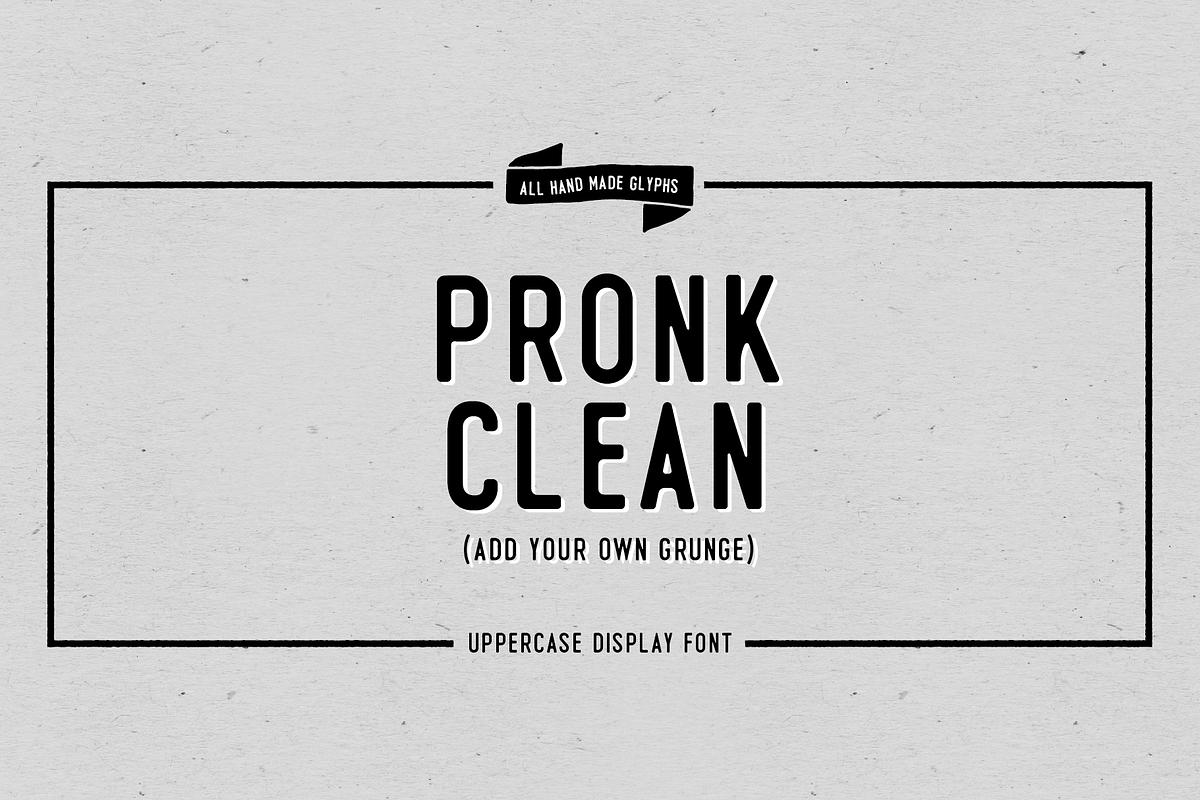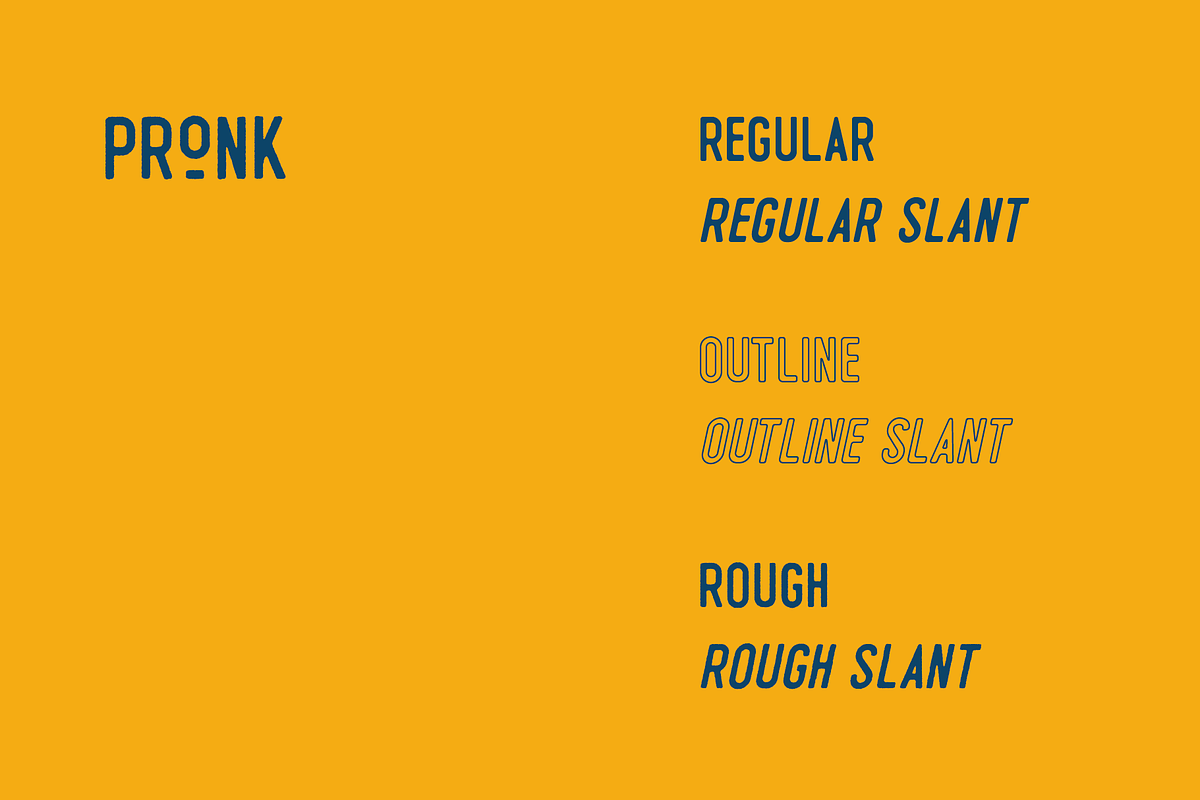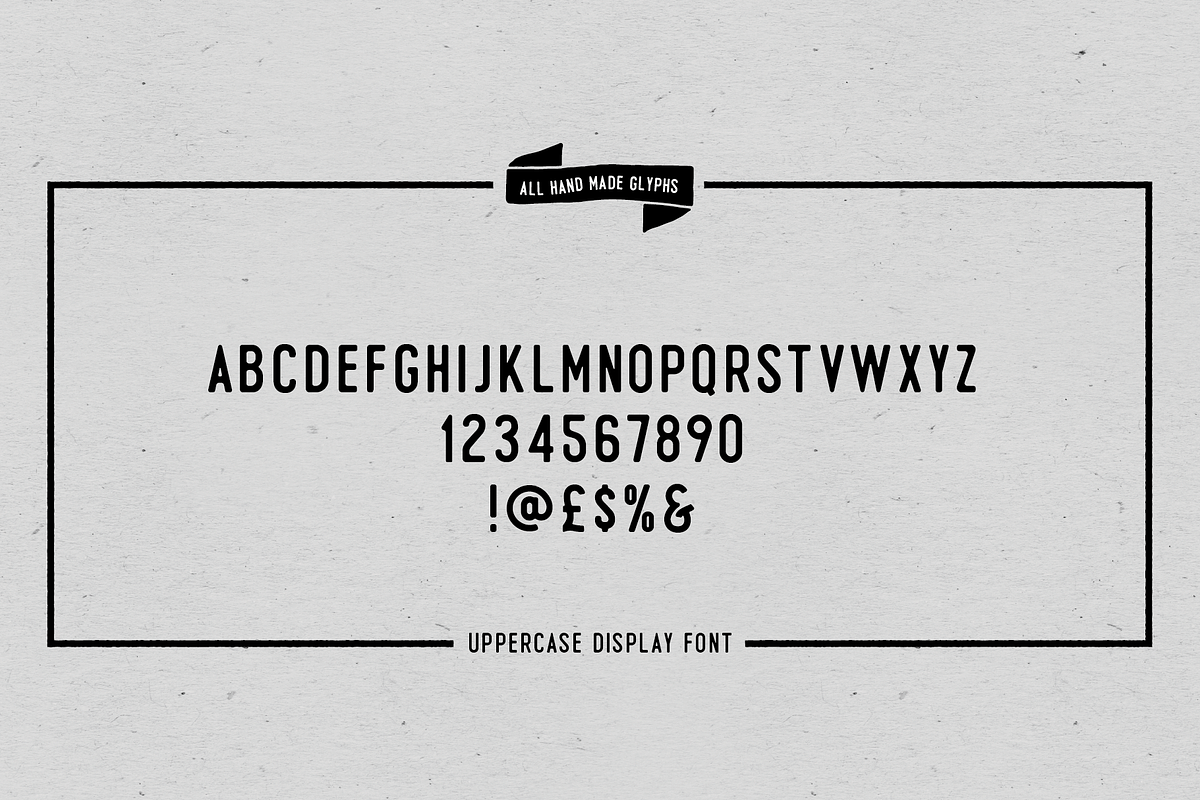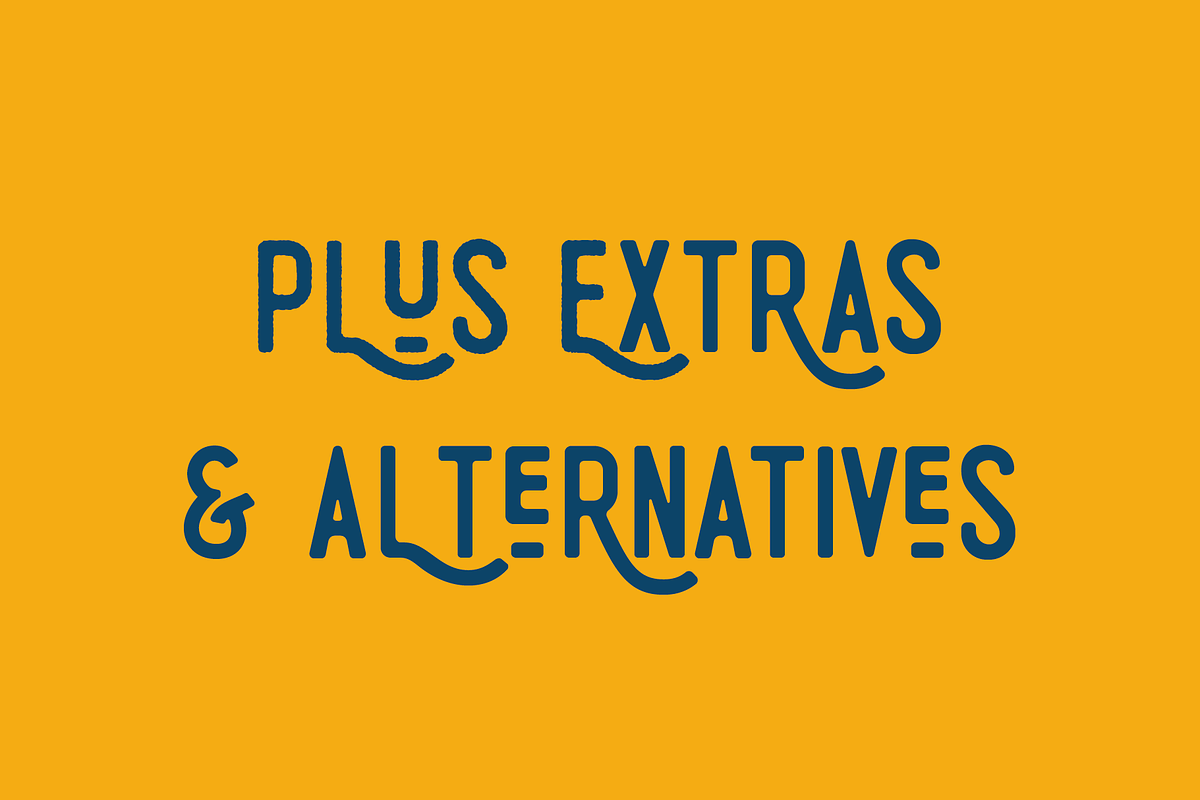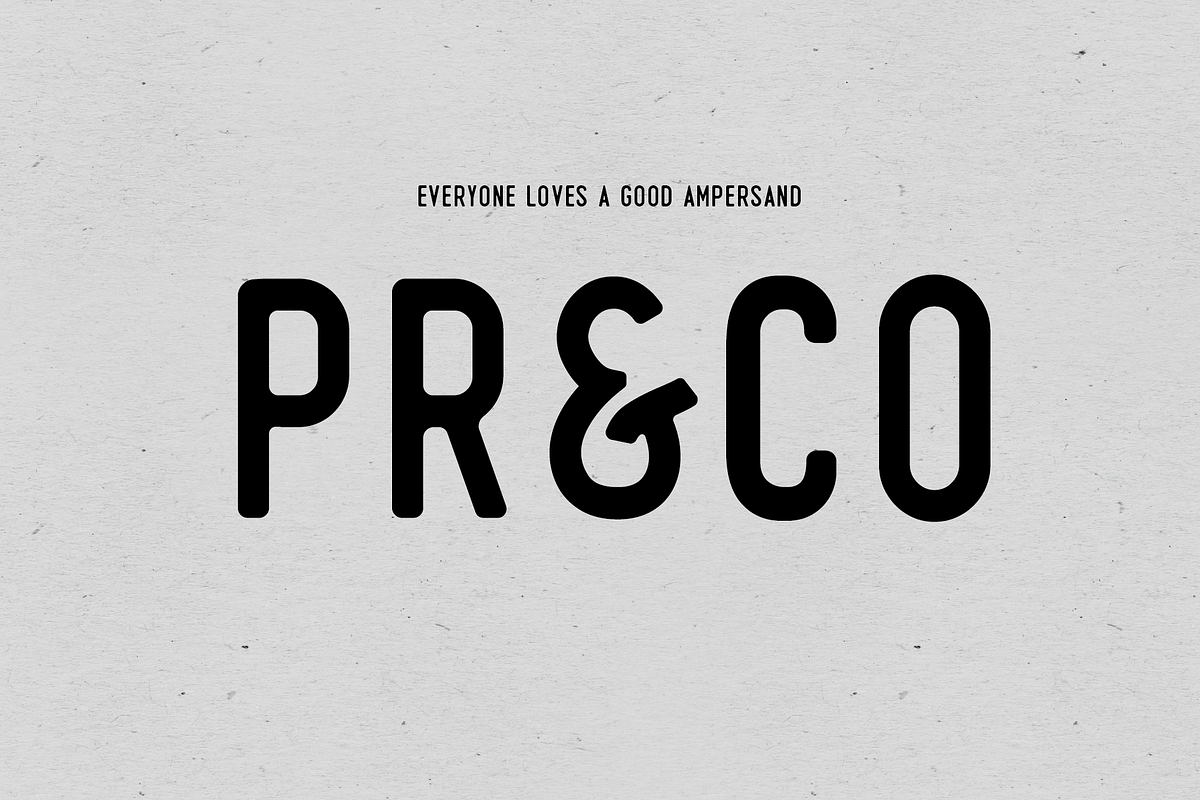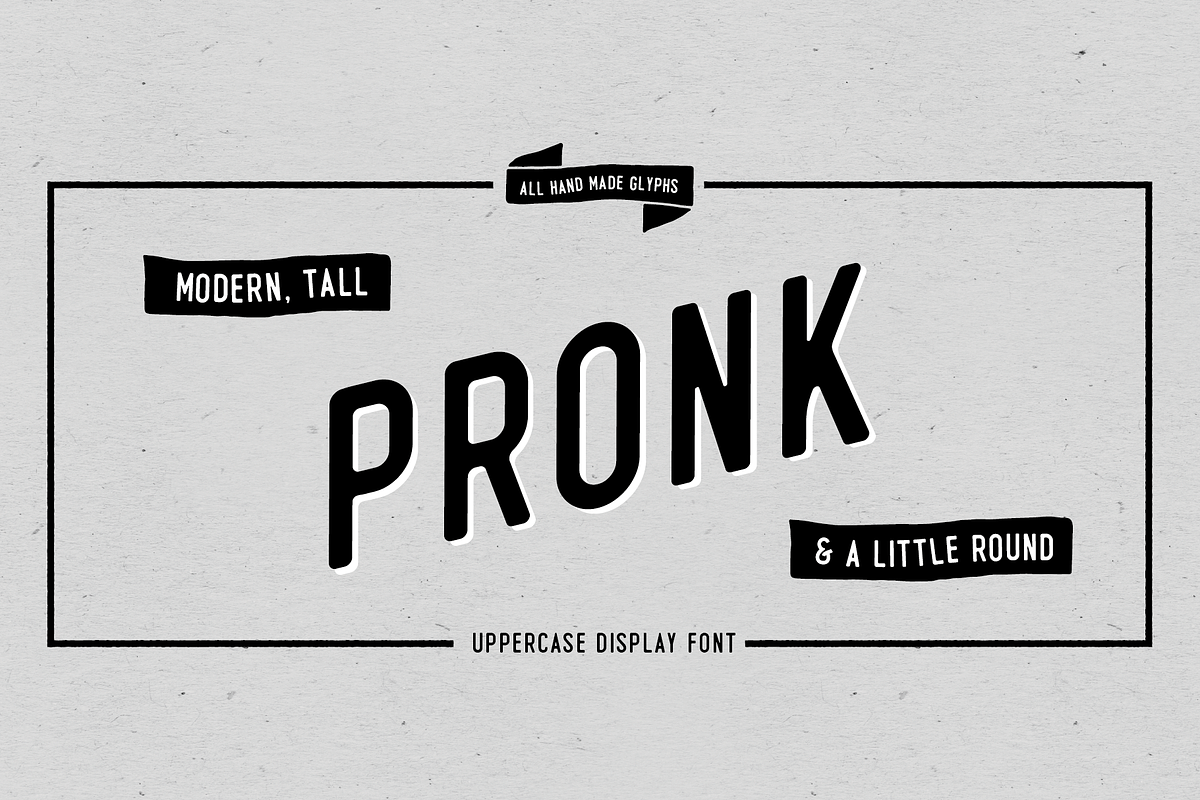
Pronk - retro vintage display font
Introducing PRONK – Display Font by We are colt
Pronk - move forward by leaps and bounds
This is an all caps, tall, bold and round sans serif display font designed for retro-modern designs. This font is perfect for your next logo design or magazine titles.
Taking inspiration from many tall fonts and American number plates I created a display font that would be my 'go-to' for a neat tall, bold font. I also wanted something which would take a good amount of treatment like stamp effects and grunge.
Pronk works brilliantly as a pegboard font and for neon lettering.
Pronk pairs perfectly with Stroom - and Gill Sans.